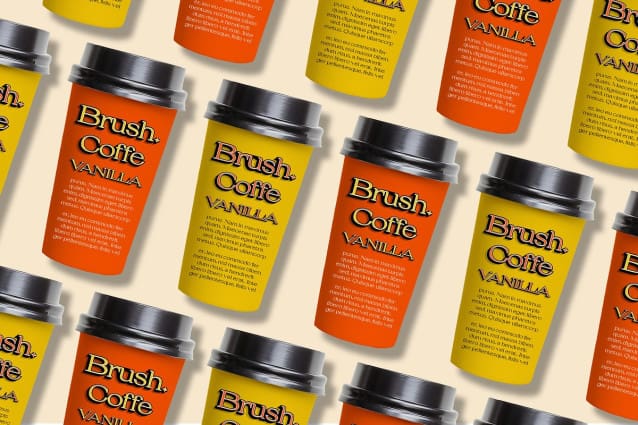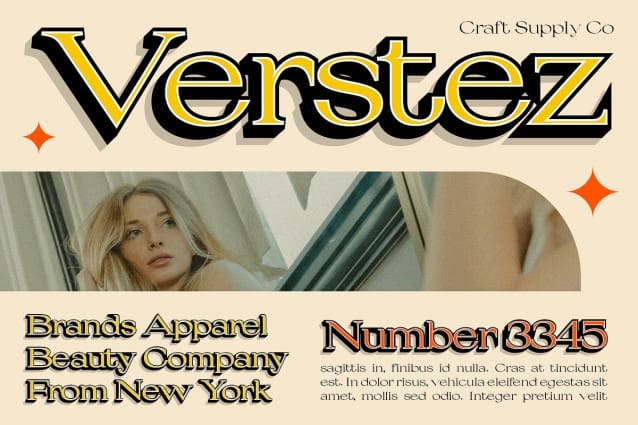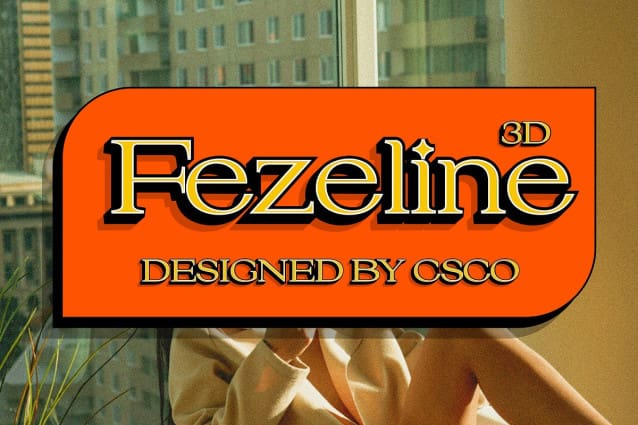
Fezeline 3D Font
Fezeline 3D Font is a modern serif font that exudes elegance with its wide form and striking 3D effect. Ideal for designs that seek to merge expansive characters with pronounced dimensional depth, this font offers a sophisticated visual appeal that captures attention and enhances readability.
The wide characters of Fezeline 3D are crafted to maximize visual impact and readability in various design applications. Each letter is meticulously designed to maintain clarity while the 3D effect adds a layer of depth, making this font suitable for both digital interfaces and printed materials.
The 3D effect in Fezeline 3D creates pronounced dimensions that elevate typographic compositions with visual depth and sophistication. This feature not only enhances the font’s aesthetic appeal but also ensures your designs stand out with a modern and dynamic presence.
Ideal for editorial layouts, branding, and signage, Fezeline 3D excels in projects that require a combination of wide characters and visually striking depth. Its ability to blend elegance with dimensional design elements makes it a versatile choice for enhancing the visual impact of various design contexts.